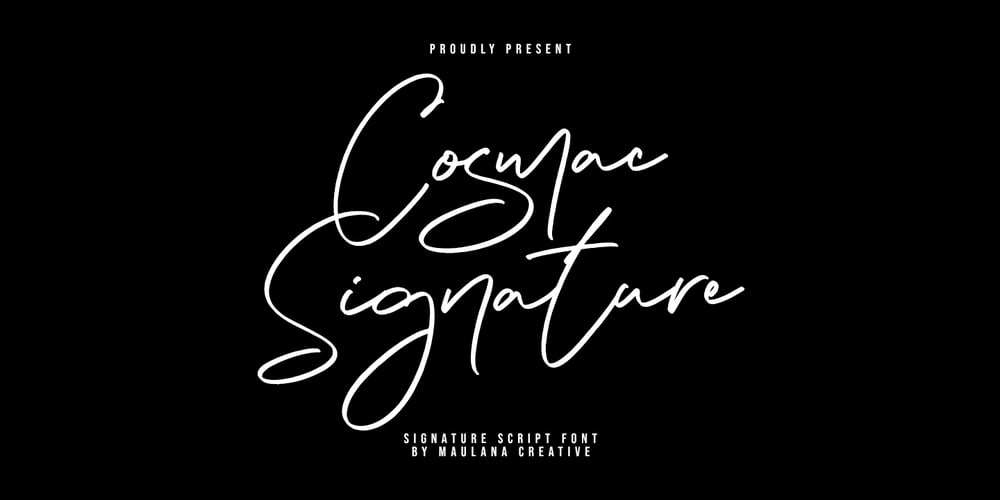
MC Cosmac Font Family was designed by Gilang Maulana and published by Maulana Creative. MC Cosmac contains 1 styles and family package options. Cosmac Signature Handwritten Script Font. With bold sharp edges stroke, fun character with a bit of ligatures and alternates. To give you an extra creative work. Cosmac font support multilingual more than 100+ language. This font is good for logo design, Social media, Movie Titles, Books Titles, a short text even a long text letter and good for your secondary text font with sans or serif. Make a stunning work with Cosmac display font.Cheers, Maulana Creative